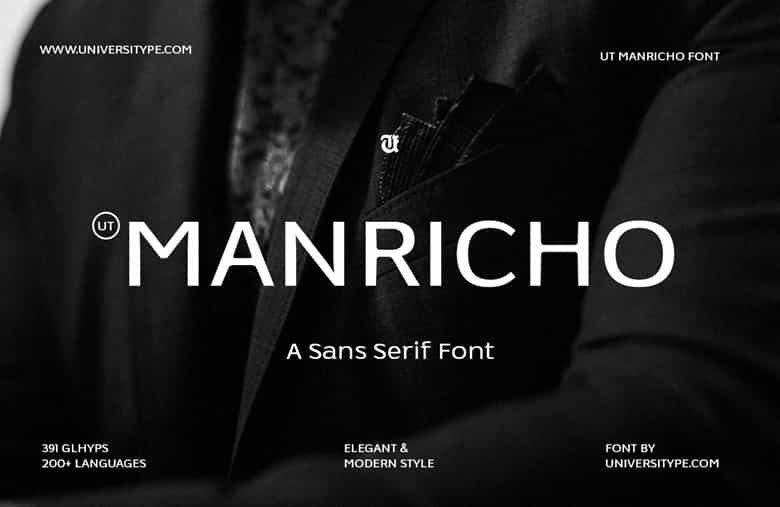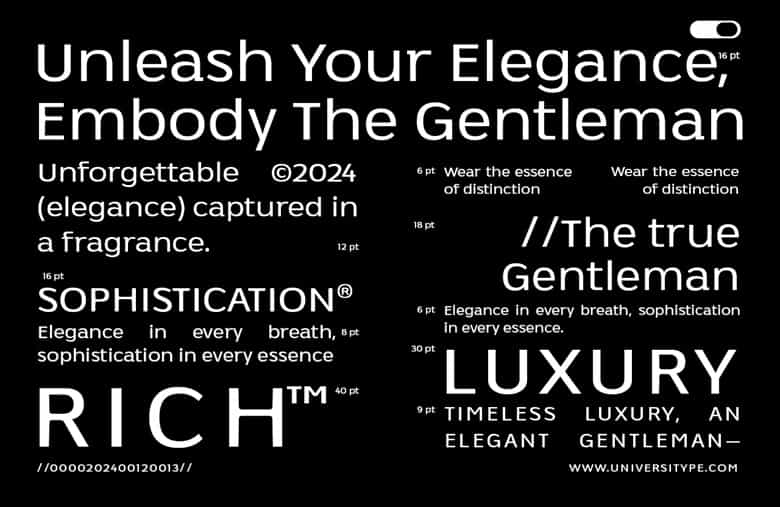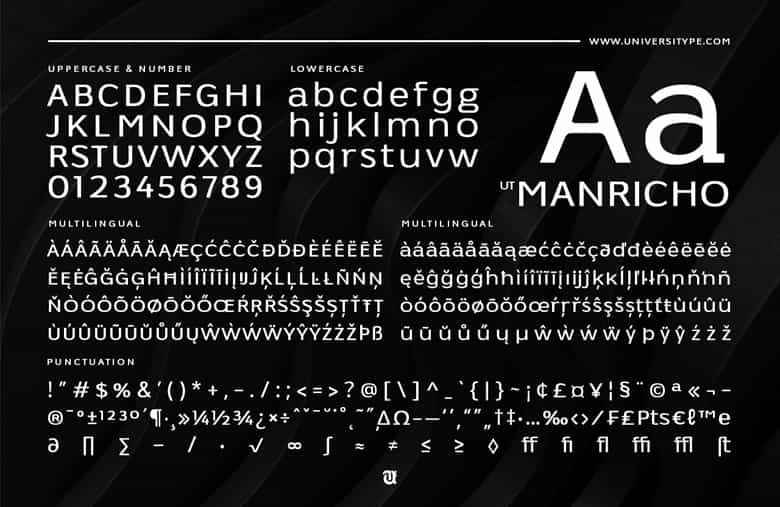
UT Manricho is a minimalist sans serif typeface designed by Universitype with a sleek and refined look and metropolitan look with no aperture. Taking its inspiration from the lines of the latest designer perfumes, the design is elegant and modern. It has strong and clear upper case which are ideal for various use in different projects, while the lower case has a contemporary look and feel that is suitable for many design applications including print and web use, branding and logo design.